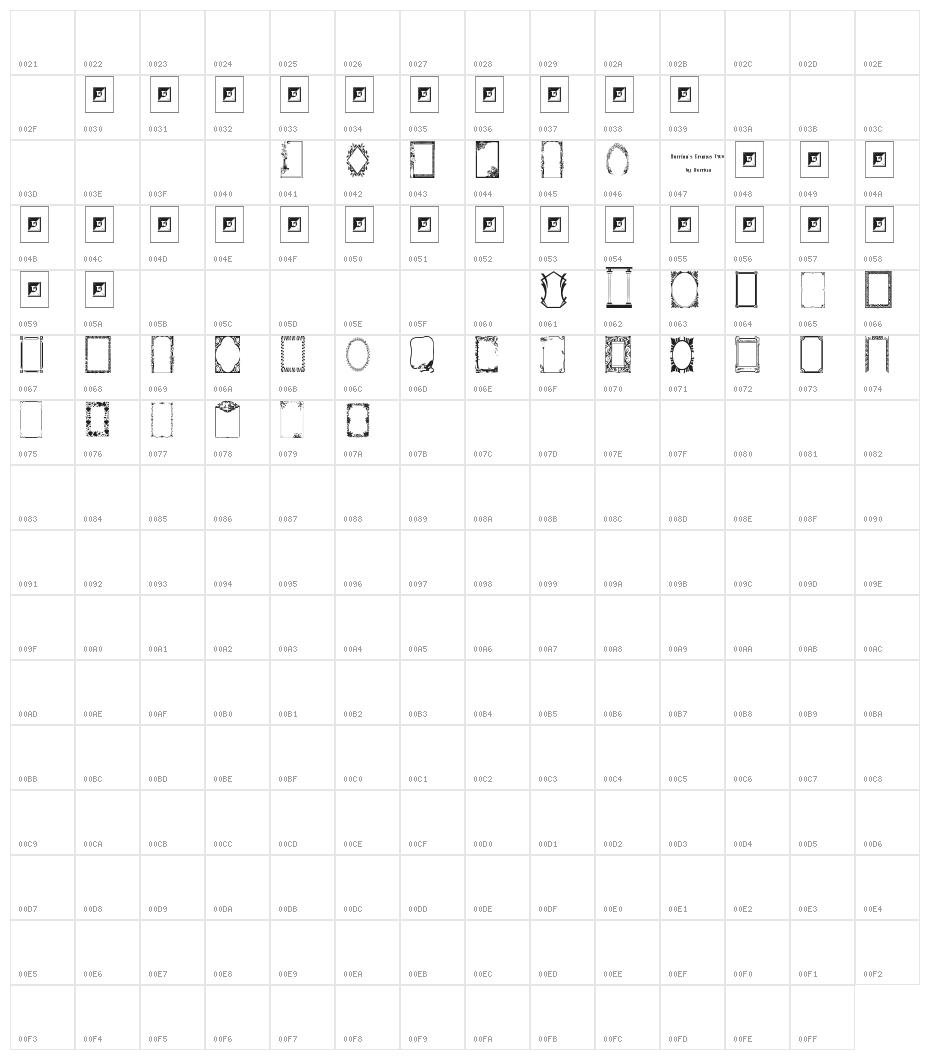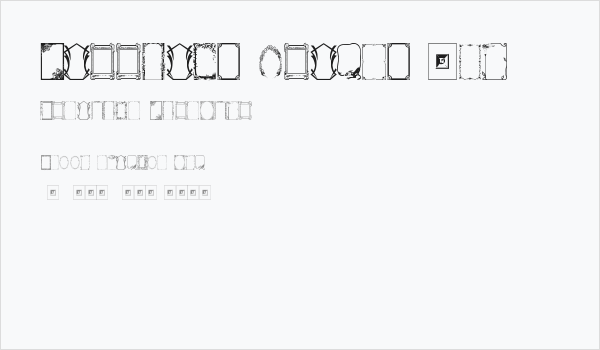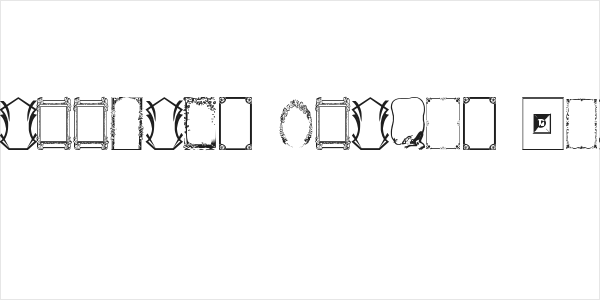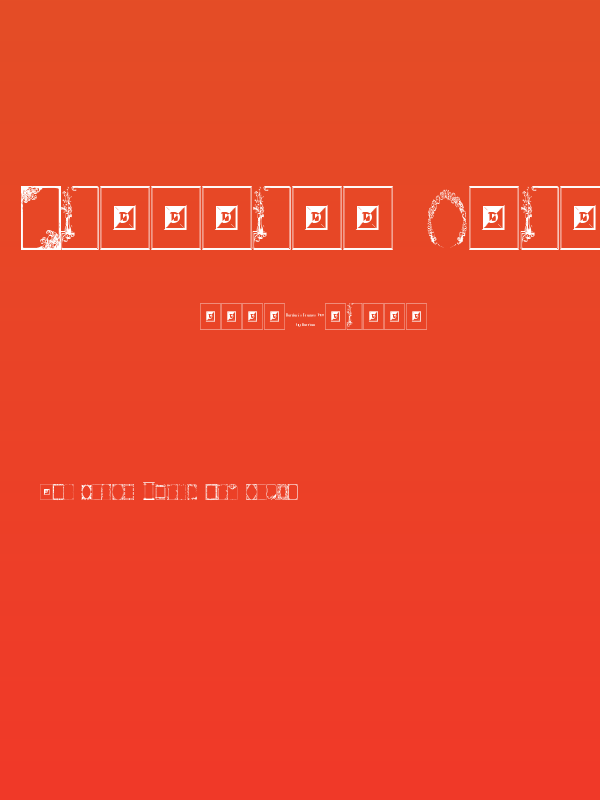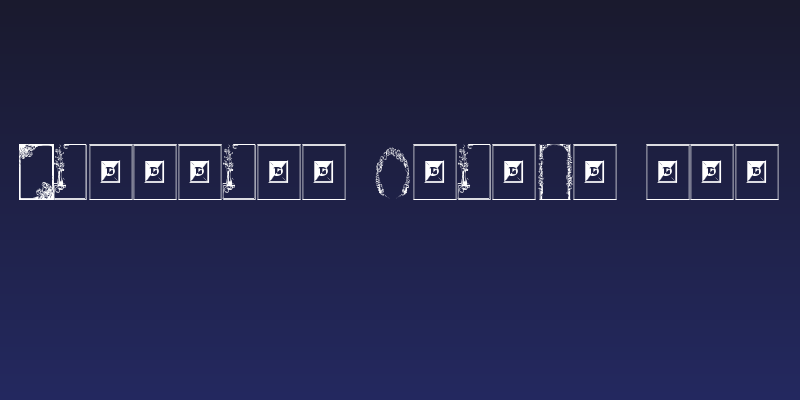
Darrians Frames Two Font
Darrians Frames Two Description
A decorative display font featuring a variety of ornate, illustrated picture frames as glyphs, each with unique borders and embellishments, suitable for creative and artistic projects.
Overall StyleDecorative, Artistic, Vintage
Use CaseBorders, Frames, Decorative accents
Proposed ProjectsScrapbooking, invitations, certificates, posters, digital art, and creative borders.